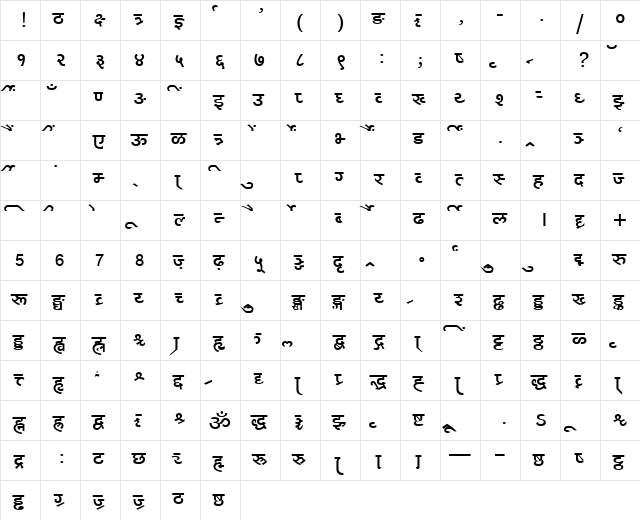
AkrutiDevPratap Bold
Design Context for AkrutiDevPratap Typeface
AkrutiDevPratap is a composed and adaptable typeface that performs quietly and consistently across a wide range of design contexts. The heavy weight commands attention and anchors typographic hierarchies.